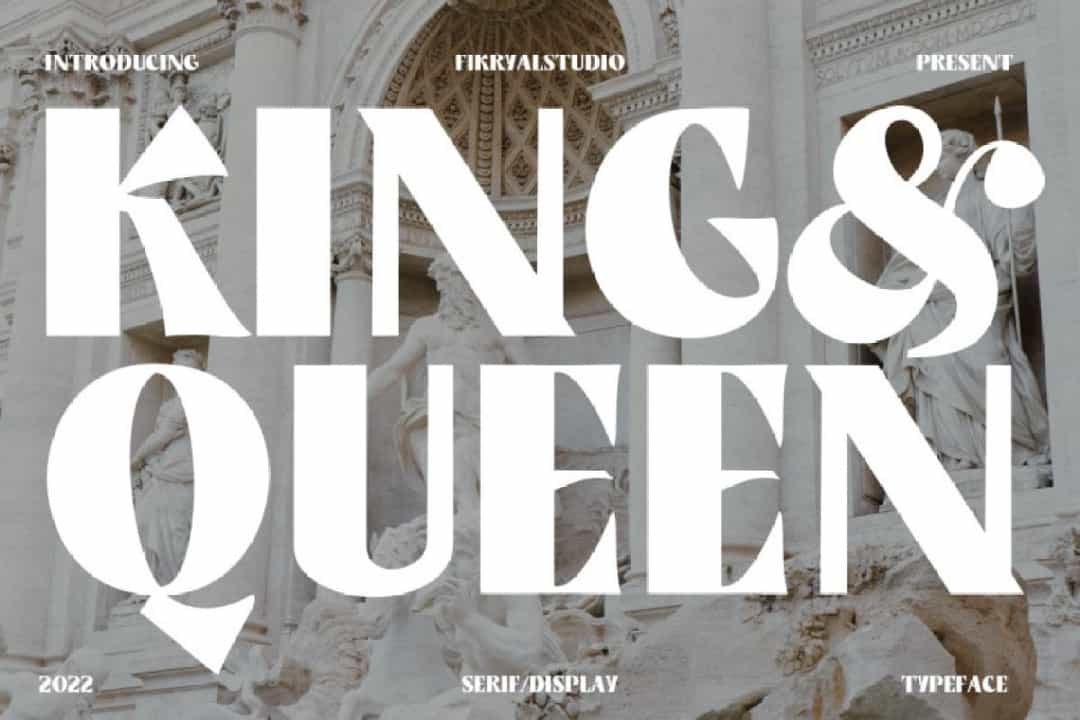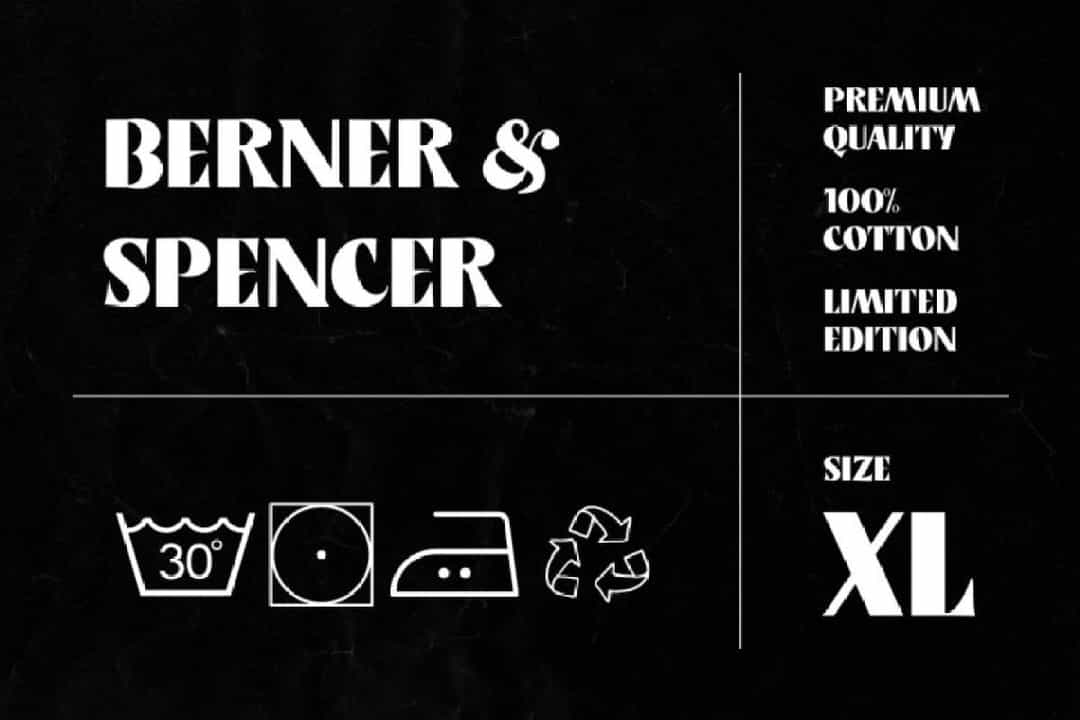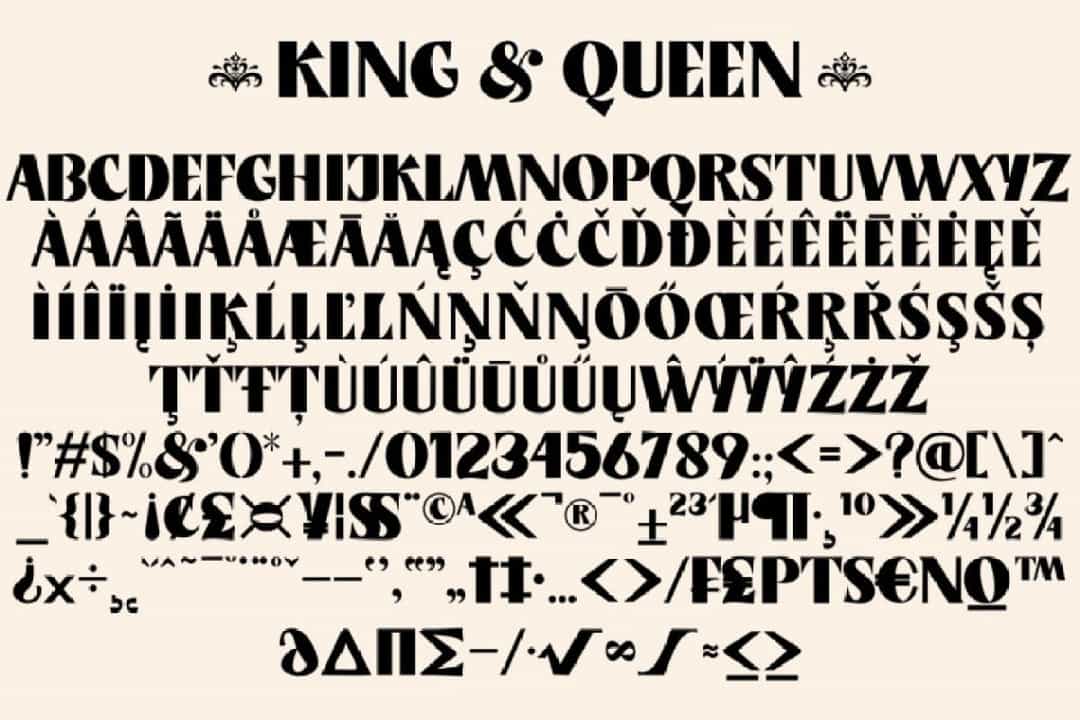
Discover King & Queen Font, part of the Serif Display collection—a versatile and unique font perfect for adding a personal touch to your projects. Download it for free and enjoy crafting designs with style, from invitations to social media posts. This font is available exclusively for personal use, giving you the freedom to create without limits. Unlock your creativity with King & Queen Font today!
King & Queen Display Font is an ideal font choice for use in many aspects of design and branding. Ideal applications include branding, logos titles posts on social media advertising product packaging labels product designs watermarks photography special events magazines web designs etc.